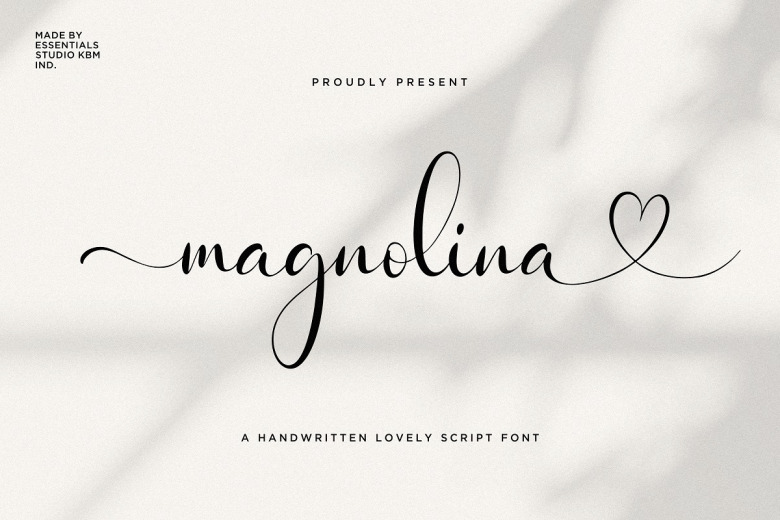
Magnolina Font
Magnolina Calligraphy Font is a Lovely Script Font With Swash and Ligature More Than 50 Stylish love Alternate. Magnolina is perfect for product packaging, branding project, megazine, social media, wedding, or just used to express words above the background. The alternative version could be a bit frightening, with limitless choices, but some repetitive creative themes can quickly be influenced.
Magnolina Calligraphy Font